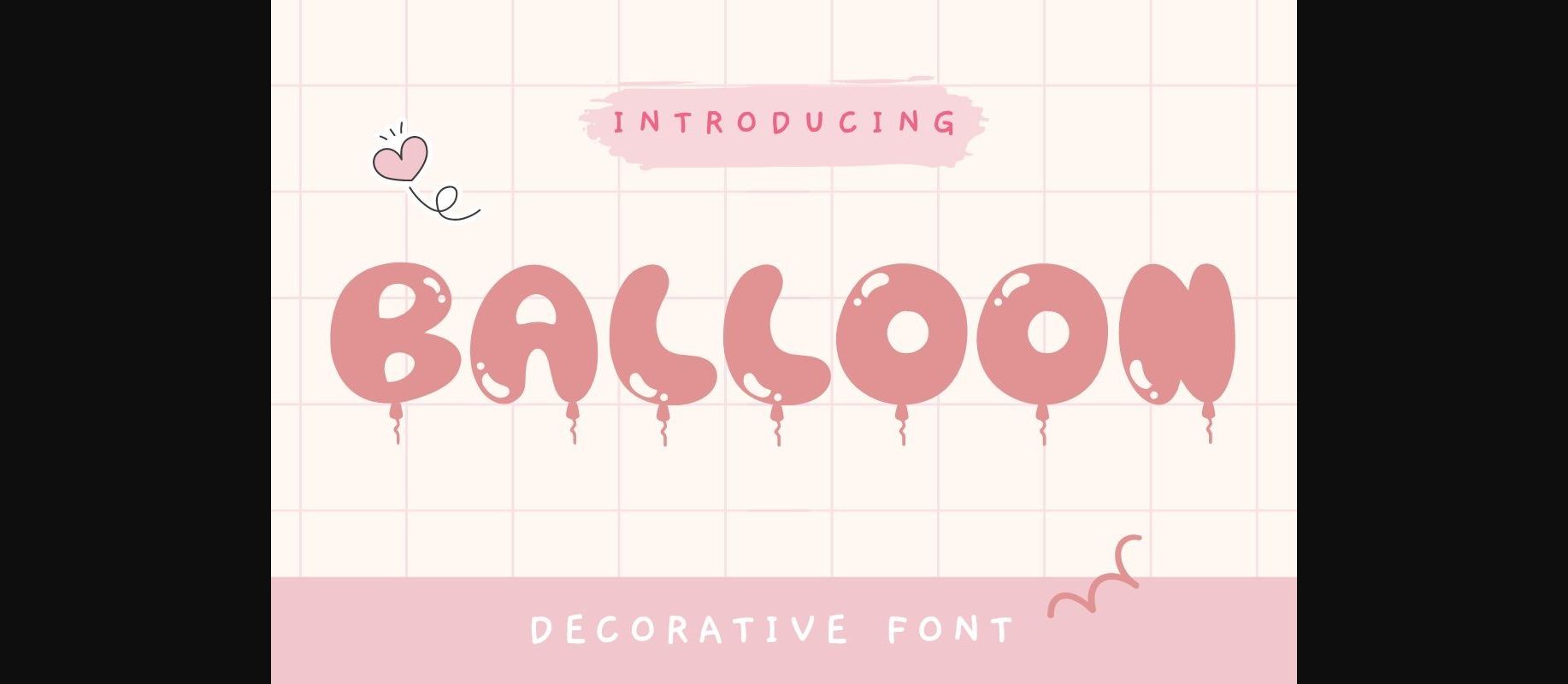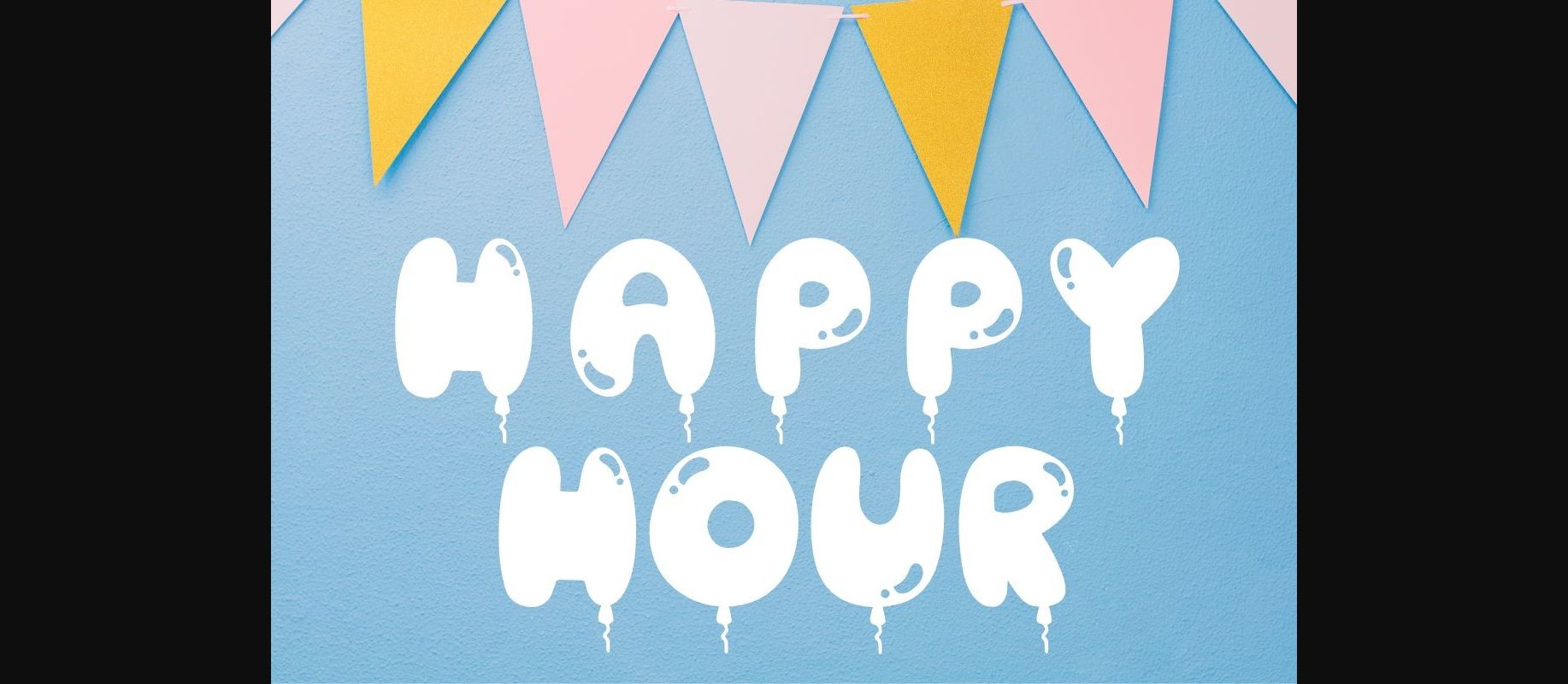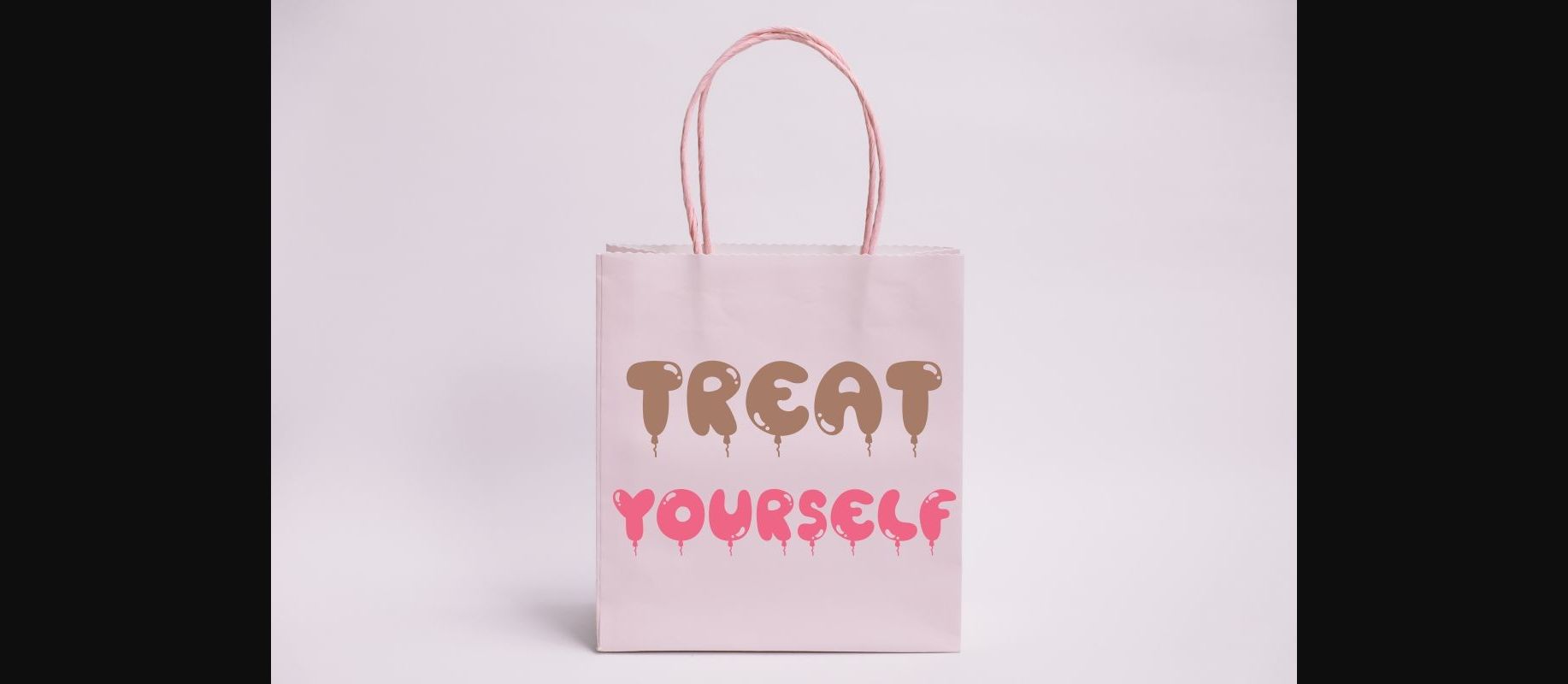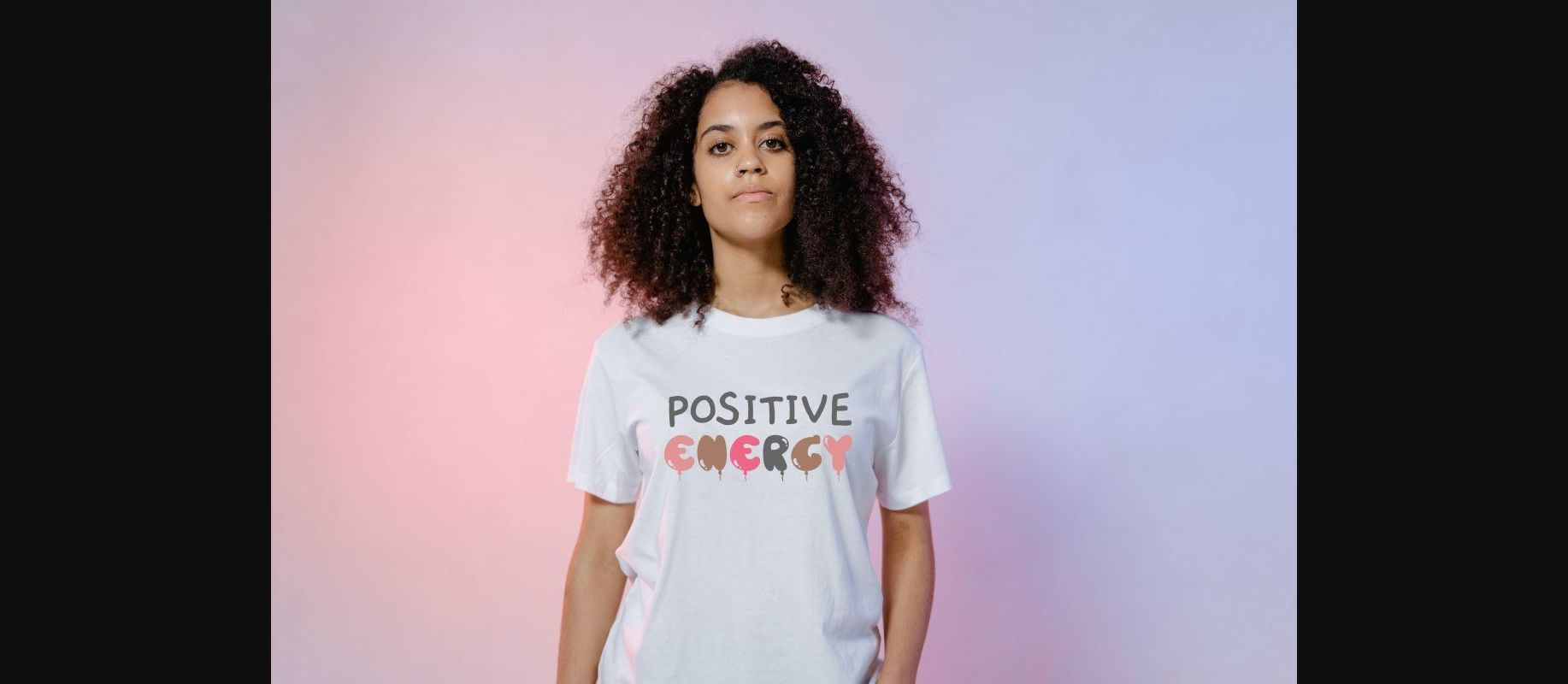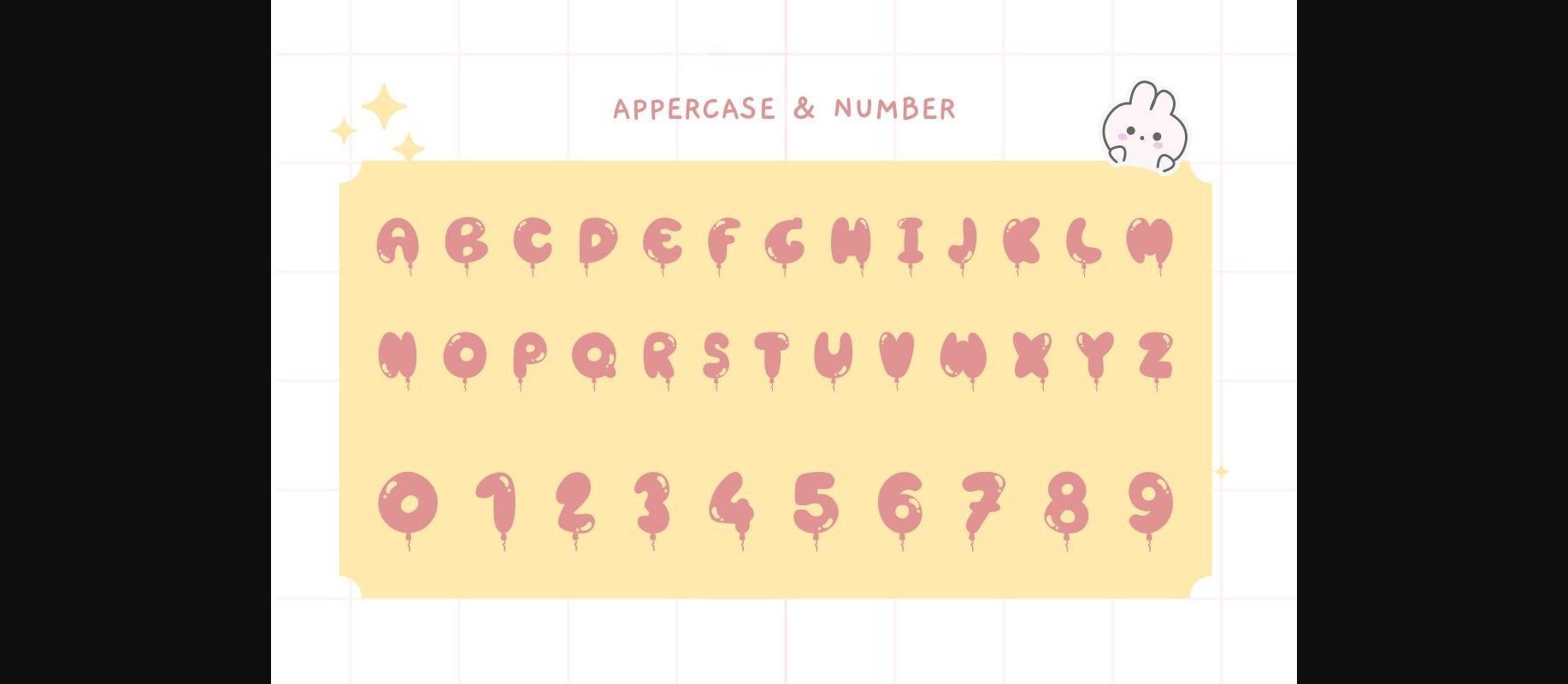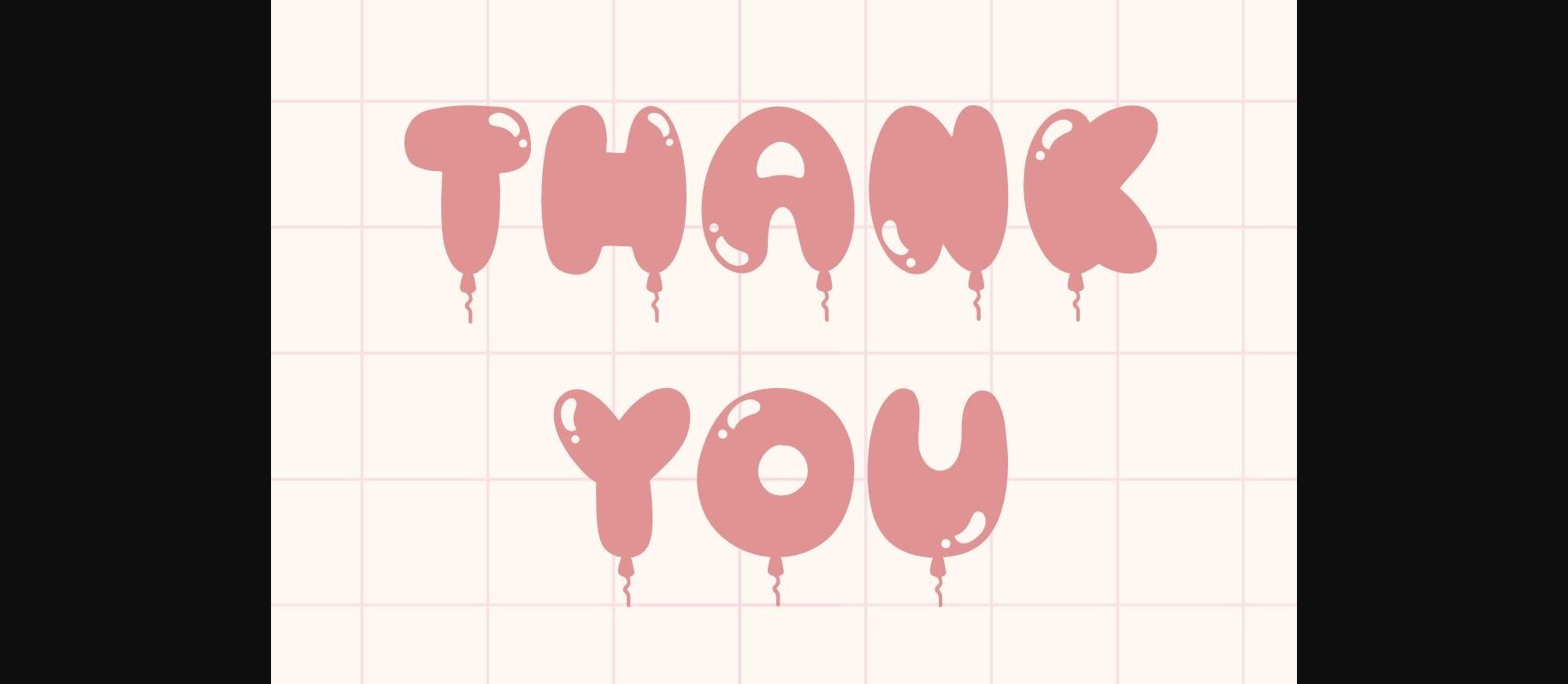
HomeDecorative FontsBalloon Font Decorative Fonts Balloon Font FacebookXPinterestWhatsApp 1 of 8 ... Balloon Font Poster 2... Balloon Font Poster 3... Balloon Font Poster 4... Balloon Font Poster 5... Balloon Font Poster 6... Balloon Font Poster 7... Balloon Font Poster 8... About Balloon Font Balloon is a friendly and lovely decorative font. No matter the topic, this font will be an incredible asset to your fonts’ library, as it has the potential to elevate any creation. DOWNLOAD NOW People also explored Raven Font Madinah Authentic Font Back to School Font Fluffy Puddle Font Background Font Start Font Parsley Font Haboro Contrast Anjania Font 316 0 TagsBalloonBalloon Font Previous articleKamille Monogram FontNext articleTidy Tulips Font LEAVE A REPLY Cancel reply Comment: Please enter your comment! Name:* Please enter your name here Email:* You have entered an incorrect email address! Please enter your email address here Website: Save my name, email, and website in this browser for the next time I comment. Personal Use Free Axaxax Bold Personal Use Free Read more about this font Feather Script Personal Use Free Read more about this font Wordan Personal Use Free Read more about this font Black Jalal Personal Use Free Read more about this font BLOG How to Install and Use Fonts on Windows, macOS, and Web Projects How to Install and Use Fonts on Windows, macOS, and Web Projects Fonts are a crucial part of design and branding. Whether you’re designing a... Free vs Paid Fonts: Why Investing in Premium Fonts Is Worth It Best Fonts for T-Shirt Design – Top 2025 Picks Exploring Font Trends